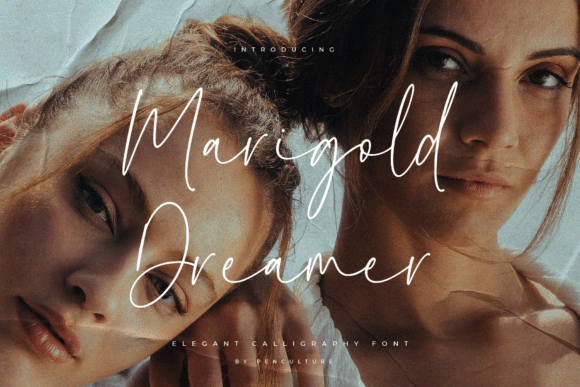
In a world of digital monotony, Marigold Dreamer emerges as a breath of fresh air, a script font that embodies the essence of individuality and creativity. Inspired by the whimsical charm of hand-lettered tales, this font is a masterpiece that weaves a spell of enchantment upon your designs.
Marigold Dreamer is not just a font; it's an invitation to embark on a journey through imagination and expression. Its delicate strokes and intricate details evoke a sense of nostalgia, transporting you back to a time when stories were handwritten with love and care. Each letter is a work of art, carefully crafted to capture the nuances and emotions of the human touch.
With Marigold Dreamer, your words take on a life of their own, dancing across the page with grace and fluidity. Its elegant ligatures and delightful tails add a touch of playfulness and sophistication, enhancing the readability and visual appeal of your text.
Whether you're a storyteller weaving tales of adventure, a designer crafting captivating visuals, or a creative professional seeking a unique voice, Marigold Dreamer is your perfect companion. Its versatility knows no bounds, lending its charm to everything from logos and branding to invitations and social media graphics.
Step into the realm of Marigold Dreamer and unleash your creativity like never before. Let your imagination soar as you craft designs that resonate with authenticity and charm. Experience the magic of handwritten elegance and make a lasting impression with every word you write. Embrace the whimsical spirit of Marigold Dreamer and let your designs blossom into masterpieces.